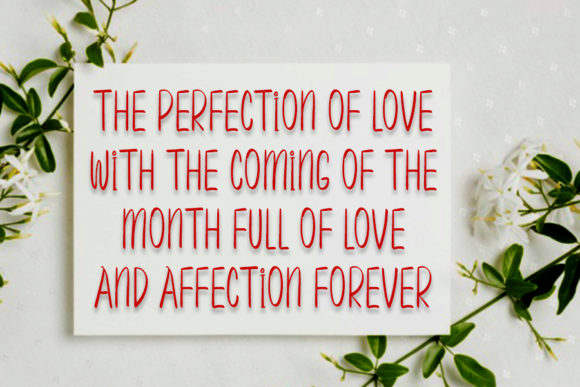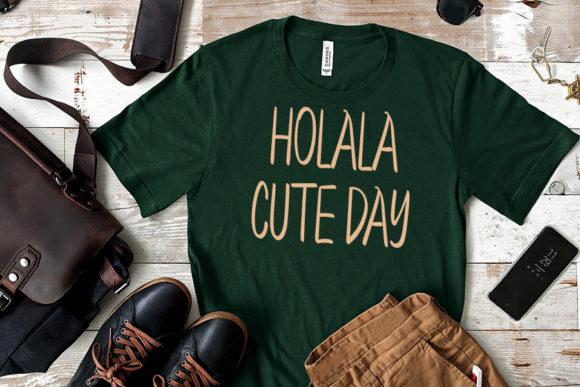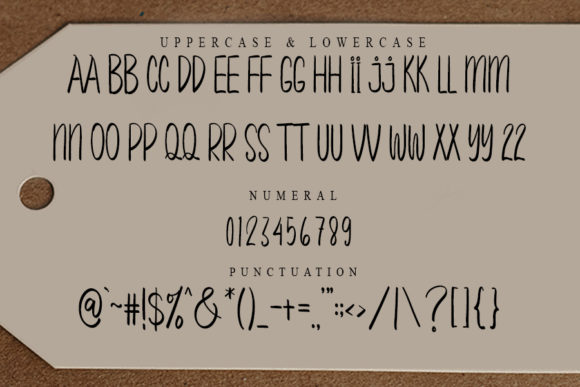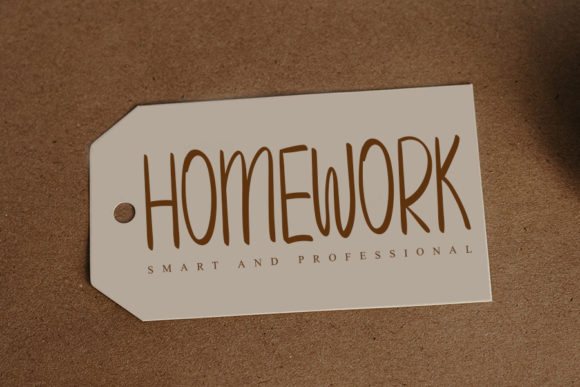
Introducing Christmas Darling Font: The Perfect Choice for Your Holiday Designs
Are you looking for a font that captures the essence of the holiday season? Do you want to add a personal touch to your designs, whether it’s a wedding invitation, a greeting card, or a logo? Look no further than Christmas Darling Font, an all-caps handwritten font that’s sure to bring joy and authenticity to your projects.
What Makes Christmas Darling Font Special?
Christmas Darling Font is a unique and charming font that’s perfect for designers and crafters who want to add a touch of personality to their work. Its narrow and nonsymmetrical characters give it a playful and whimsical feel that’s sure to delight. The font’s handwritten style also adds a level of warmth and coziness, making it ideal for holiday-themed designs.
Characteristics of Christmas Darling Font
- All-caps font: Christmas Darling Font is an all-caps font, which means it’s perfect for headlines, titles, and short phrases.
- Handwritten style: The font’s handwritten style gives it a personal and authentic feel that’s perfect for designs that require a touch of elegance and sophistication.
- Narrow and nonsymmetrical characters: The font’s narrow and nonsymmetrical characters add a level of playfulness and whimsy, making it perfect for designs that require a bit of personality.
Uses for Christmas Darling Font
Christmas Darling Font is a versatile font that can be used for a variety of design projects, including:
- Wedding invitations: The font’s elegant and sophisticated style makes it perfect for wedding invitations, save-the-date cards, and other wedding-related designs.
- Greeting cards: Christmas Darling Font is ideal for holiday greeting cards, thank-you cards, and other types of cards that require a personal touch.
- Logos: The font’s unique and playful style makes it perfect for logos, branding, and other types of business designs.
- Social media graphics: Christmas Darling Font can be used to create eye-catching social media graphics, including Facebook posts, Instagram stories, and Twitter headers.
Tips for Using Christmas Darling Font
Here are a few tips for using Christmas Darling Font in your designs:
- Pair it with a simple background: Christmas Darling Font is a bold and playful font, so it’s best to pair it with a simple background that won’t compete with the text.
- Use it for headlines and titles: The font’s all-caps style makes it perfect for headlines and titles, so use it to add a touch of personality to your designs.
- Experiment with colors: Christmas Darling Font looks great in a variety of colors, so don’t be afraid to experiment and find the perfect color scheme for your design.
Christmas Darling Font is a unique and charming font that’s perfect for designers and crafters who want to add a touch of personality to their holiday designs. Its handwritten style, narrow and nonsymmetrical characters, and all-caps style make it ideal for a variety of design projects, from wedding invitations to social media graphics. With its versatility and playfulness, Christmas Darling Font is sure to become a favorite in your design arsenal.
- What type of font is Christmas Darling Font?: Christmas Darling Font is an all-caps handwritten font with narrow and nonsymmetrical characters.
- What is Christmas Darling Font used for?: Christmas Darling Font can be used for a variety of design projects, including wedding invitations, greeting cards, logos, and social media graphics.